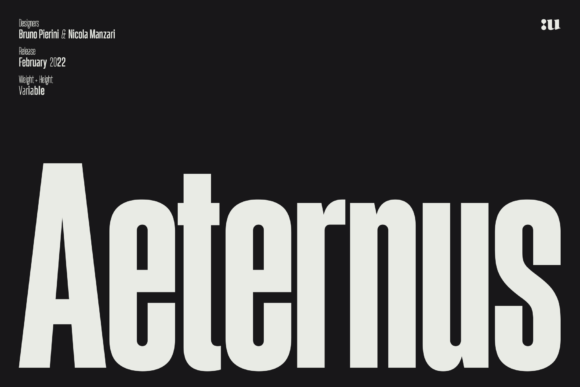
Aeternus Font: The Ultimate Sans Serif Font for Modern Designs
In the world of typography, fonts play a crucial role in conveying the tone and personality of a brand. With numerous font options available, finding the perfect one for your design project can be overwhelming. However, if you’re looking for a clean, neat, and versatile sans serif font, look no further than Aeternus Font. In this article, we’ll explore the features, benefits, and uses of Aeternus Font, and why it’s an excellent choice for your branding projects.
What is Aeternus Font?
Aeternus Font is a modern sans serif font designed to provide a clean and minimalist look to your designs. Its simplicity and elegance make it an ideal choice for various branding projects, including logos, t-shirt printing, sporting designs, and more. The font’s sleek lines and curves ensure that it stands out in a wide range of contexts, making it a versatile option for designers.
Key Features of Aeternus Font
- Clean and Neat Design: Aeternus Font boasts a clean and neat design, making it perfect for designs that require a minimalist approach.
- Sans Serif: The font’s sans serif design ensures that it looks modern and sleek, making it suitable for contemporary brands.
- Versatile: Aeternus Font can be used in various design projects, including logos, t-shirt printing, sporting designs, and more.
- Easy to Read: The font’s clear and legible design makes it easy to read, even at small sizes.
Benefits of Using Aeternus Font
Using Aeternus Font in your design projects offers several benefits. Some of the advantages of using this font include:
- Unique Identity: Aeternus Font helps create a unique identity for your brand, setting it apart from others.
- Professional Look: The font’s clean and minimalist design gives your designs a professional look, making them more credible.
- Flexibility: Aeternus Font can be used in various design projects, making it a flexible option for designers.
- Easy to Pair: The font’s simple design makes it easy to pair with other fonts, allowing you to create a cohesive look.
Use Cases for Aeternus Font
Aeternus Font is a versatile font that can be used in various design projects. Some of the popular use cases for this font include:
- Logo Design: Aeternus Font is an excellent choice for logo design, providing a clean and modern look to your brand’s identity.
- T-Shirt Printing: The font’s bold and clear design makes it perfect for t-shirt printing, ensuring that your designs stand out.
- Sporting Design: Aeternus Font’s modern and sleek design makes it an excellent choice for sporting designs, including jerseys, logos, and more.
- Branding Projects: The font’s versatility makes it suitable for various branding projects, including business cards, brochures, and more.
Why Choose Aeternus Font?
With numerous font options available, why should you choose Aeternus Font for your design projects? Here are some reasons why Aeternus Font stands out:
- Unique Design: Aeternus Font boasts a unique design that sets it apart from other fonts.
- High-Quality: The font is designed to provide high-quality results, ensuring that your designs look professional.
In conclusion, Aeternus Font is an excellent choice for designers looking for a clean, neat, and versatile sans serif font. Its unique design, high-quality results, and ease of use make it an ideal option for various branding projects. Whether you’re designing a logo, t-shirt, or sporting design, Aeternus Font is sure to provide a professional and modern look to your designs.
- What is Aeternus Font?: Aeternus Font is a clean and neat sans serif font suitable for various branding projects.